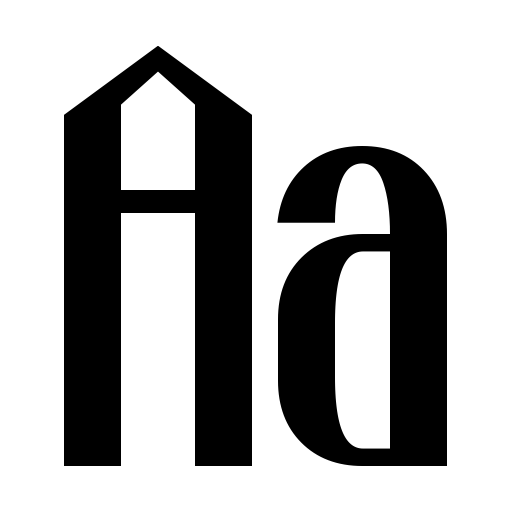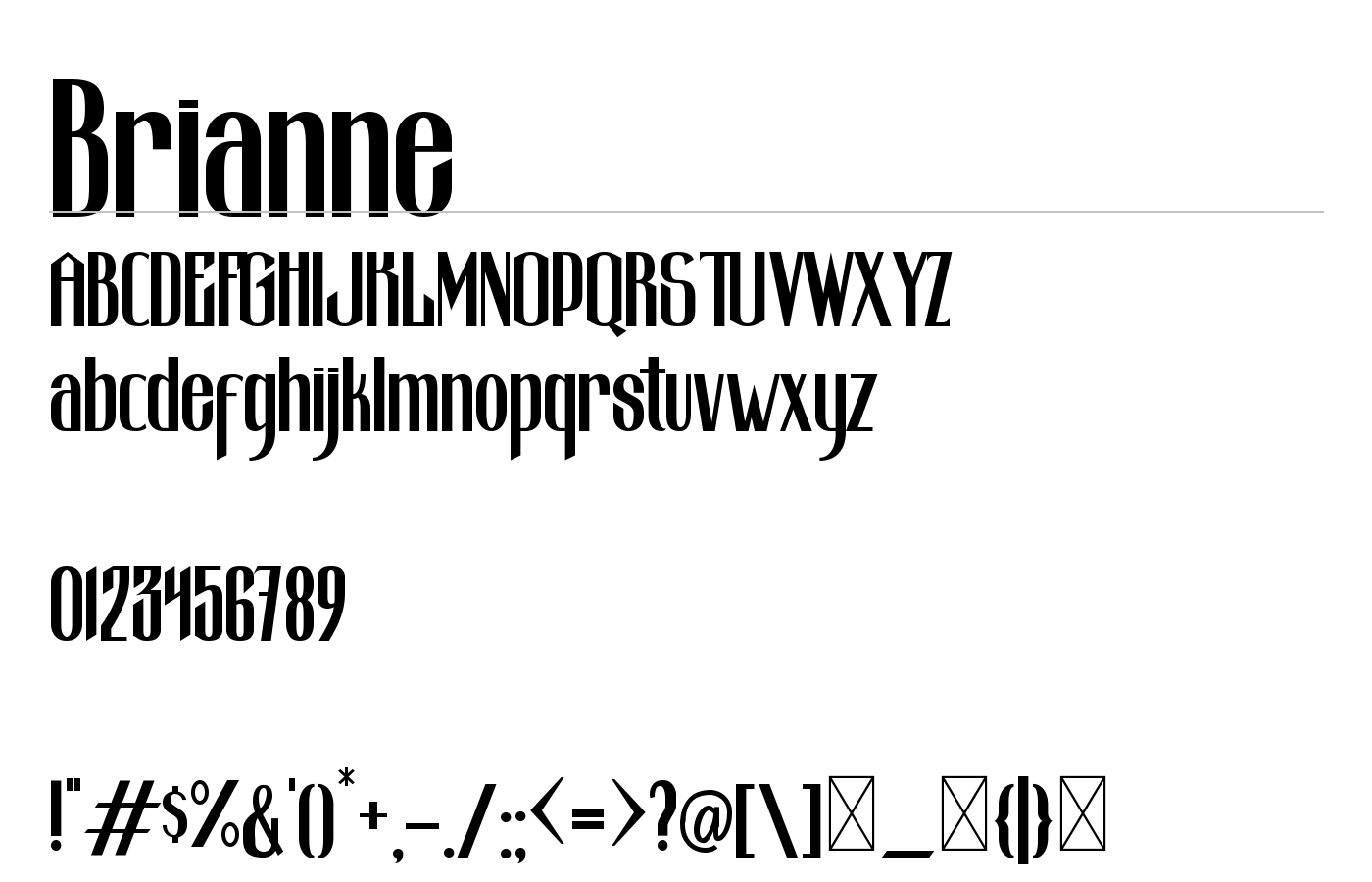
Brianne is a narrow, condensed serif font with a dramatic contrast between thick and thin strokes, giving it a tall, elegant silhouette. Its sharp, bracketed serifs and unique letterforms bring a vintage, art deco flair that feels sophisticated and stylish. This font works wonderfully for headlines, branding, and editorial design where a distinctive, refined look is desired.
Brianne Font